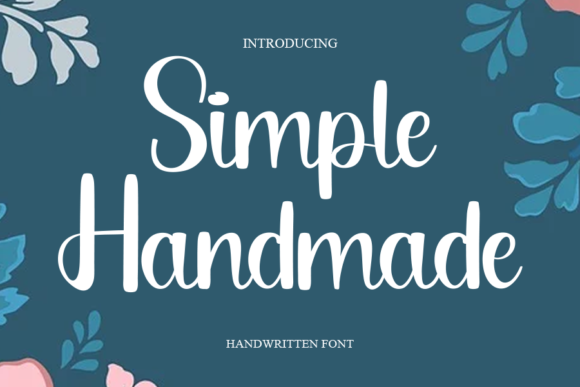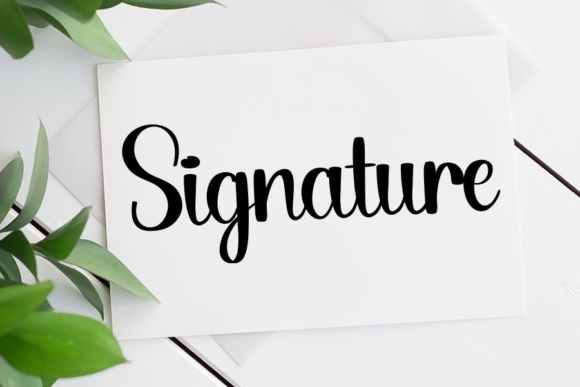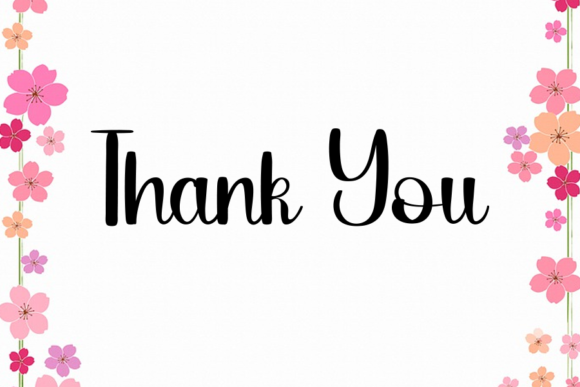
About Simple Handmade Font
Simple Handmade is a cute and delicate lettered handwritten font that you can use for all chalkboard quotes or teaching material! Its authentic look will add a personal and realistic feel to your designs. We can already picture this creative font on Christmas cards, invitations, frames, stickers, and more!